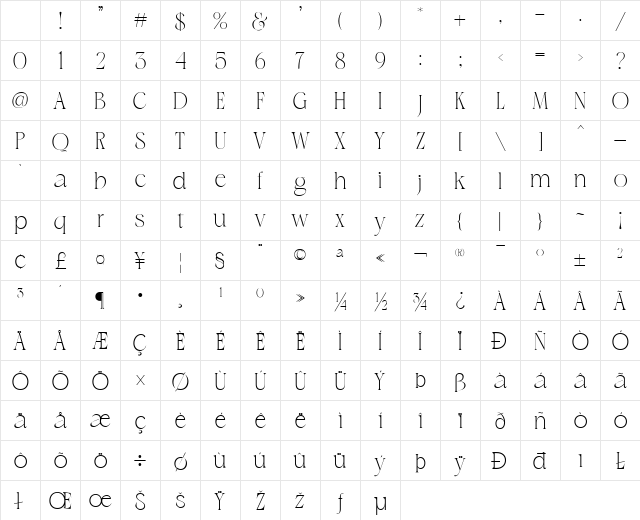
Complete Delicate Caligraphy Regular glyph index. Displaying only characters natively supported by Delicate Caligraphy Regular font.
Delicate Caligraphy is a composed and adaptable typeface that performs quietly and consistently across a wide range of design contexts.